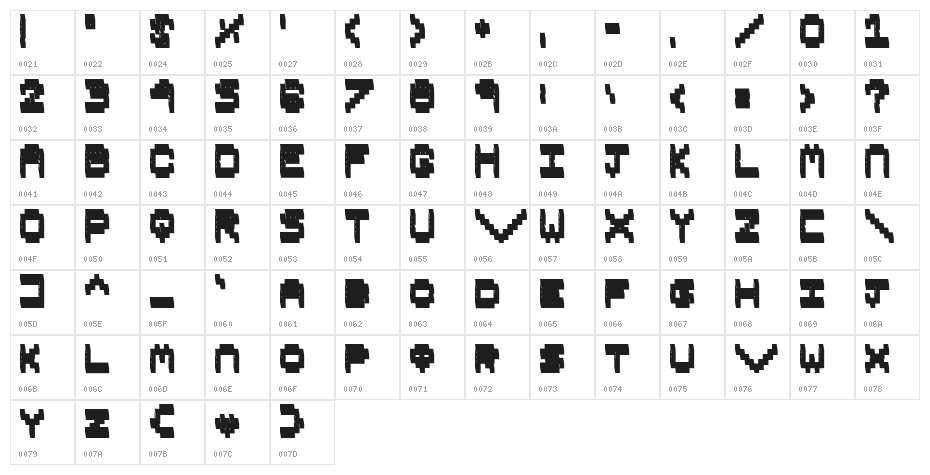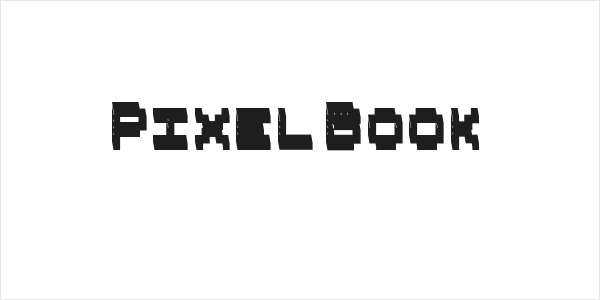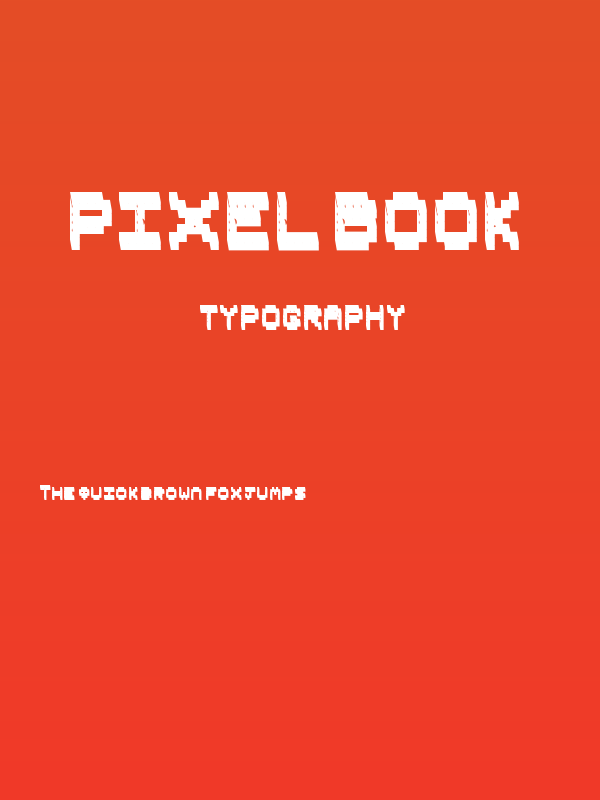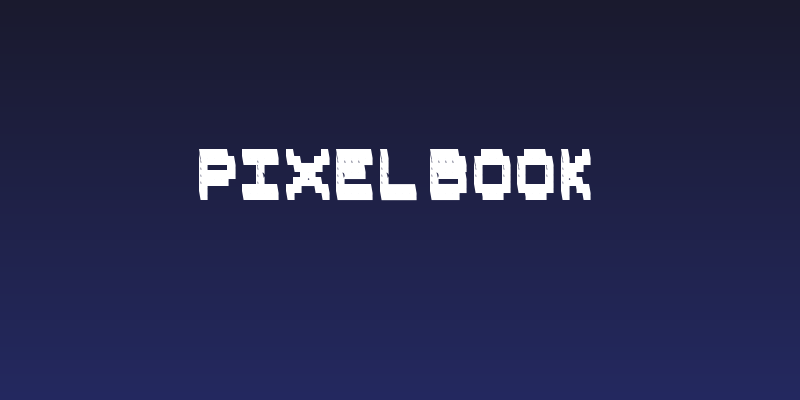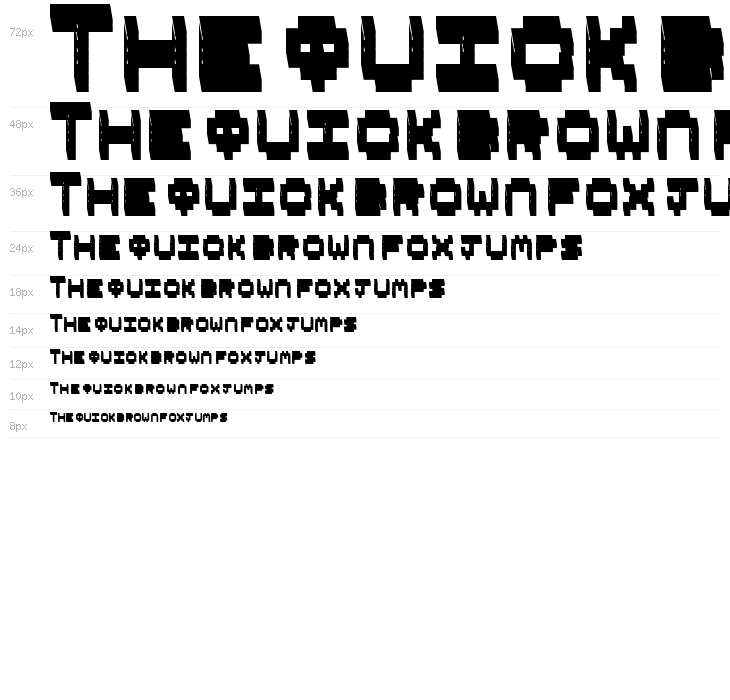
Pixel Book Font
Pixel Book Description
This font features a distinct pixelated style, reminiscent of early digital displays and retro video games. Each character is constructed with blocky, square shapes that give it a unique, nostalgic appearance. The uppercase and lowercase letters maintain a consistent height, contributing to a uniform look. Numbers and special characters follow the same pixelated design, ensuring a cohesive visual experience across all text elements. The font's bold and geometric nature makes it stand out, ideal for projects that aim to capture a vintage digital aesthetic.
| Proposed Projects | Ideal for video game graphics, retro-themed posters, digital art, and any project seeking a nostalgic digital look. |